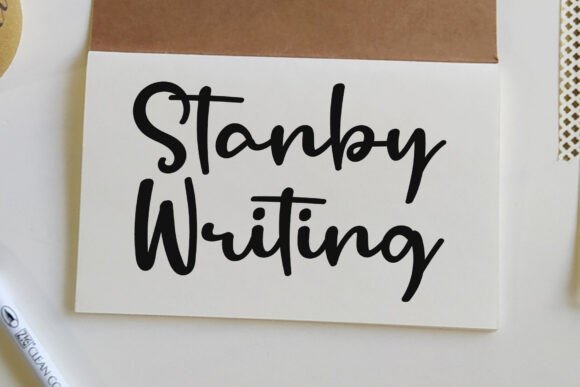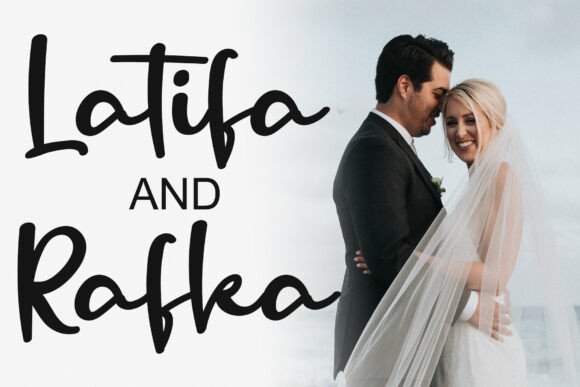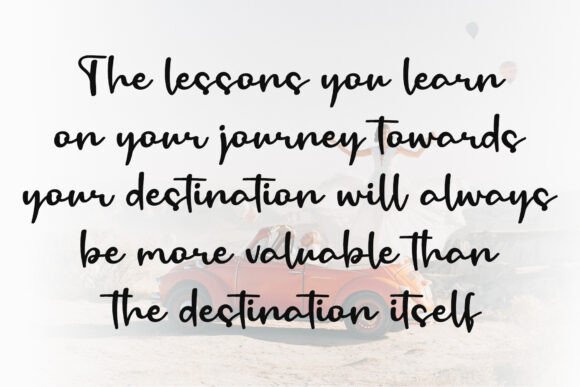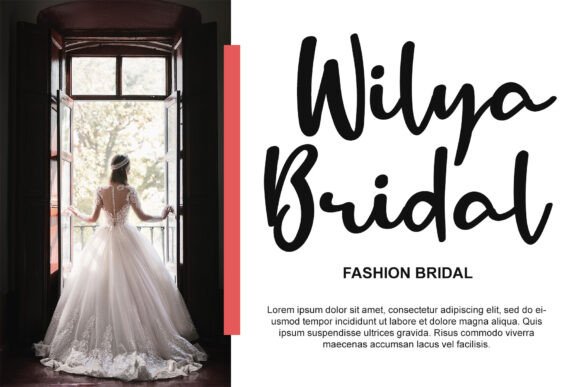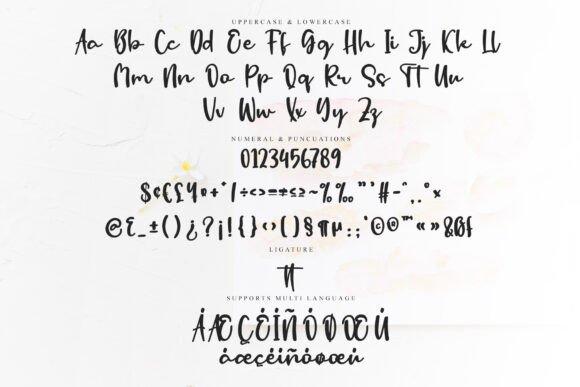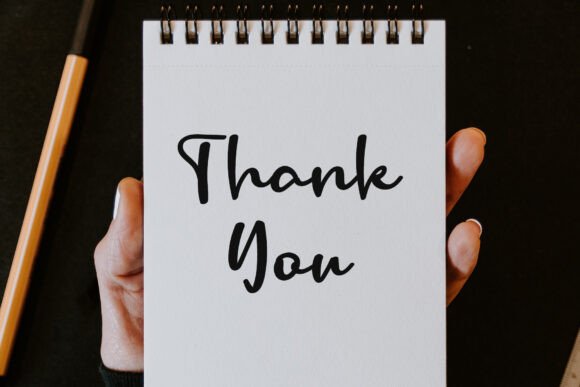
Introducing Bright Miracle Font: Elevate Your Designs with Elegance
In the world of typography, a font can make or break a design. For designers and crafters looking for that perfect touch of elegance and sophistication, the Bright Miracle Font is a game-changer. This delicate, elegant, and flowing handwritten font is designed to capture the hearts of creatives with its distinct and timeless style. Whether you’re working on a branding project, crafting beautiful stationery, or creating stunning digital content, Bright Miracle is poised to become your new favorite companion.
Aesthetic Appeal of Bright Miracle Font
Bright Miracle Font boasts an incredibly distinct style that sets it apart from the myriad of fonts available today. Its delicate and elegant flow is reminiscent of handwritten calligraphy, yet it maintains a level of readability and versatility that is hard to find. The fluidity of its strokes and the gentle curves of its letters evoke a sense of grace and sophistication, making any design it touches instantly more refined.
One of the standout features of Bright Miracle is its ability to convey a sense of timelessness. In an era where design trends come and go, this font remains classic and enduring. It doesn’t lean on fleeting fashions but instead offers a look that is both vintage and forward-thinking. This timeless quality ensures that your designs will remain relevant and beautiful for years to come.
Practical Benefits: PUA Encoding for Easy Access
Aside from its aesthetic appeal, Bright Miracle Font also offers practical benefits that make it a joy to work with. One of the most significant advantages is its PUA (Private Use Area) encoding. This feature means that the font includes a comprehensive range of glyphs and swashes that can be accessed easily, allowing for a high degree of customization and creativity.
PUA encoding is a significant benefit for designers and crafters. It eliminates the complexity often associated with accessing special characters, making it straightforward to incorporate intricate details and flourishes into your work. With Bright Miracle, you can effortlessly enhance your designs, adding a personal touch that elevates them from ordinary to extraordinary.
Applications of Bright Miracle Font
The versatility of Bright Miracle Font makes it suitable for a wide range of projects. Here are a few ideas to get you started:
- Branding and Logotypes: Create a memorable brand identity with a logo that stands out. Bright Miracle’s elegance and sophistication make it perfect for businesses looking to convey a sense of luxury or bespoke service.
- Stationery and Invitations: Add a touch of class to your wedding invitations, thank you cards, or business stationery. The font’s flowing style lends itself beautifully to paper goods, making them truly special.
- Digital Content: From blog headers to social media graphics, Bright Miracle can add a professional and stylish flair to your online presence.
- Packaging: Make your product packaging stand out on the shelves with elegant typography that reflects the quality of your product.
Bright Miracle Font is more than just a typeface; it’s a design companion that can elevate your projects to new heights of elegance and sophistication. Its timeless style, combined with practical features like PUA encoding, makes it an invaluable tool for designers and crafters. Whether you’re aiming to create a stunning brand identity, beautiful stationery, or captivating digital content, Bright Miracle is ready to help you bring your vision to life.
So why wait? Fall in love with the distinct and elegant style of Bright Miracle Font and discover the difference it can make in your designs. With its flowing strokes and timeless appeal, it’s poised to become an essential part of your creative toolkit.